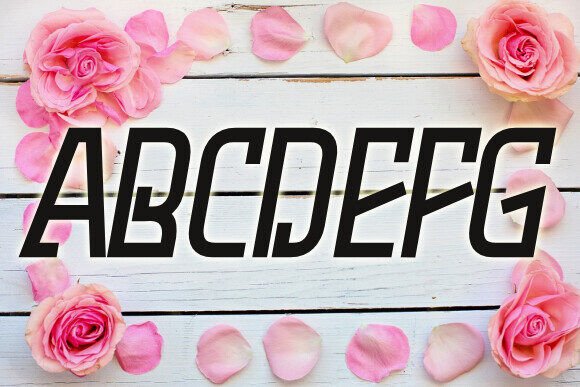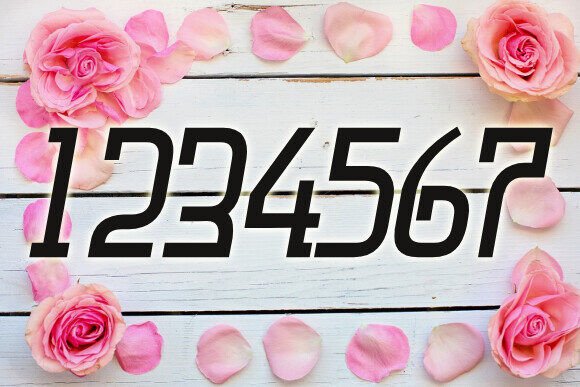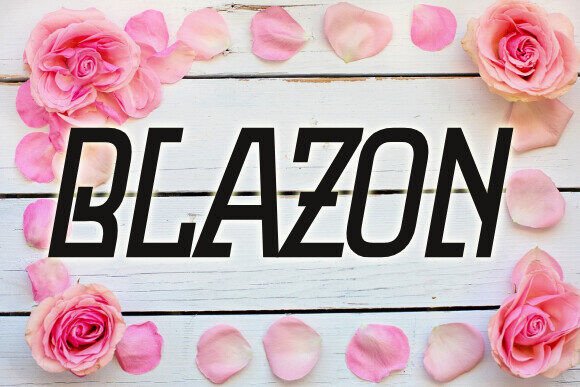
Introduction to Ronnie Font
Ronnie is an awesome display font that will make your designs look great.
Use this font on posters, flyers, and t-shirts .
Key Features of Ronnie Font
Why Choose Ronnie Font?
Ronnie Font offers exceptional quality and versatility, making it a valuable addition to your design toolkit. Whether you’re creating for personal projects or commercial use, Ronnie Font delivers professional results.